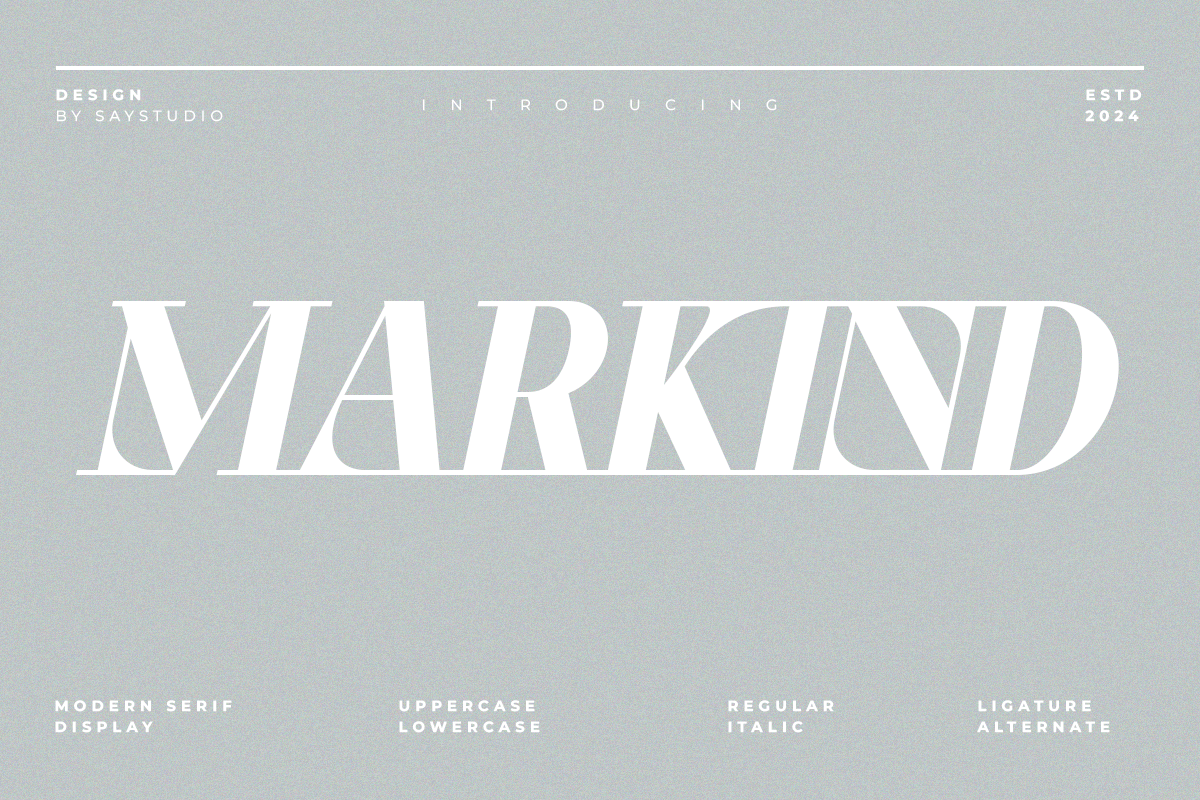
Markind - Modern Display Font Free Download
Markind - Modern Display Font Free Download is a bold and striking typeface designed for impactful, eye-catching designs. With its modern geometric shapes and sleek lines, this font is perfect for creating strong headlines, logos, posters, social media graphics, and more.
Its clean and contemporary aesthetic makes it ideal for projects that require a professional yet stylish appearance. Whether you're working on a brand identity, a creative event, or a digital campaign, Markind brings a modern and sophisticated touch to your typography.